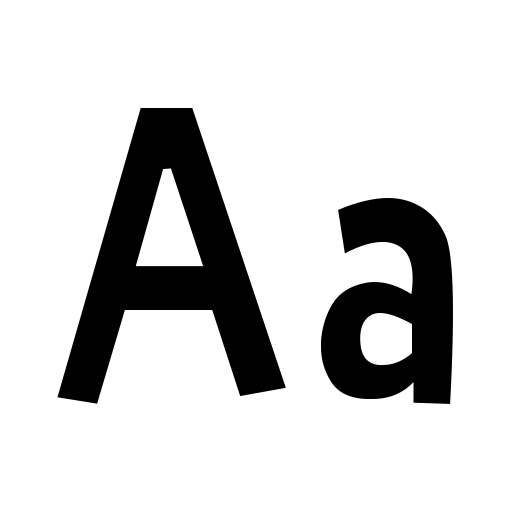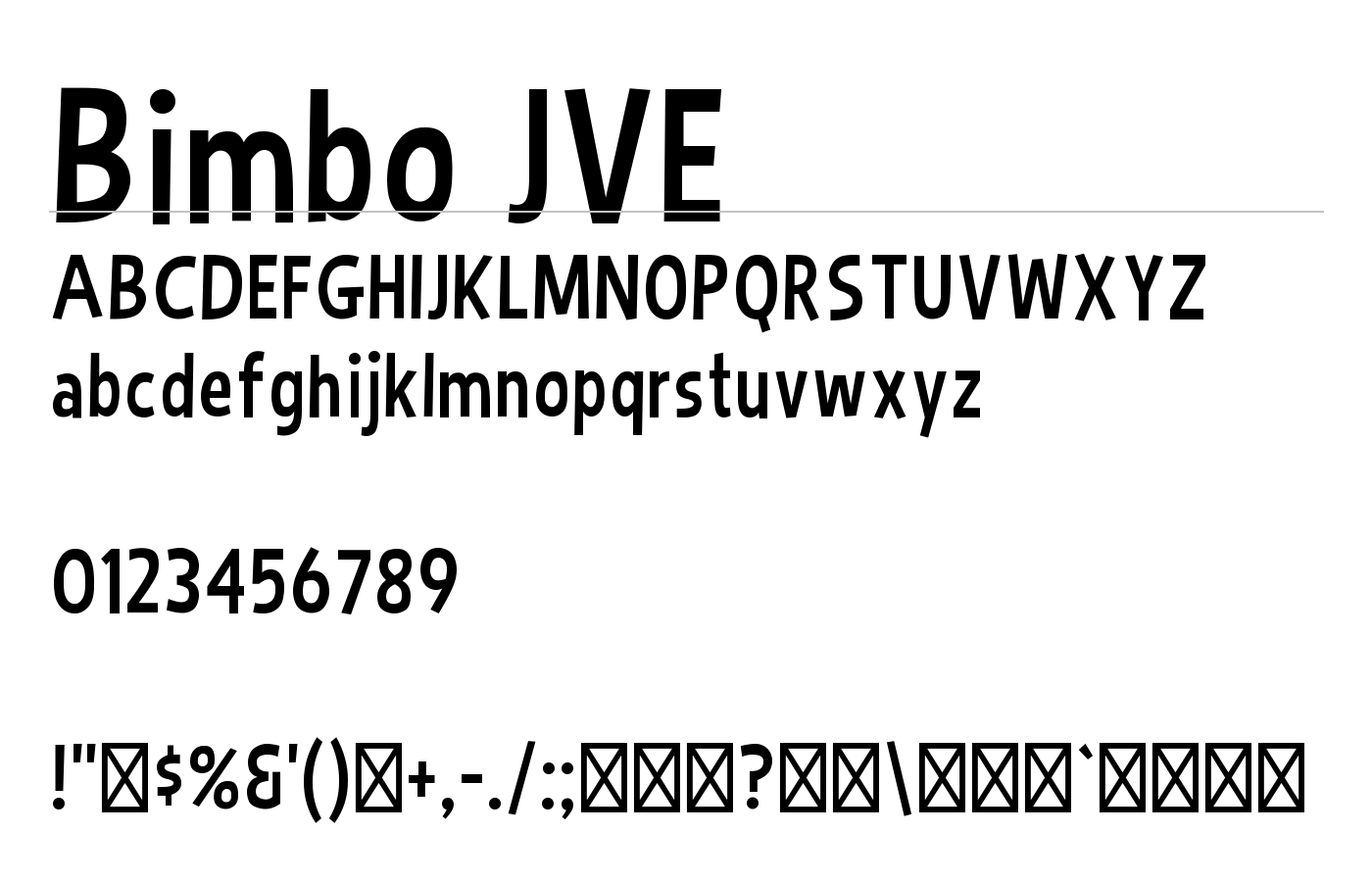
Bimbo JVE is a distinctive sans serif font with a condensed, slightly irregular style that lends it a playful and informal character. Its clean lines and medium weight, combined with unique angled letterforms and a moderate x-height, make it expressive yet highly legible. This font works well for creative branding, headlines, and casual editorial projects where a touch of personality is desired without sacrificing clarity.
Bimbo JVE Font
About Bimbo JVE Font
| Font family | Bimbo JVE Font |
| Designer | Jayvee D. Enaguas (JVEnaguas) |